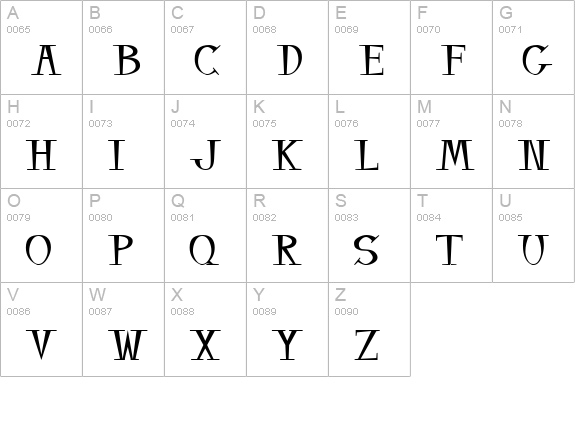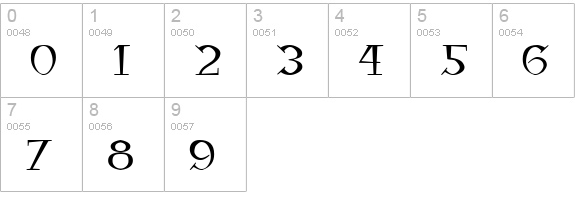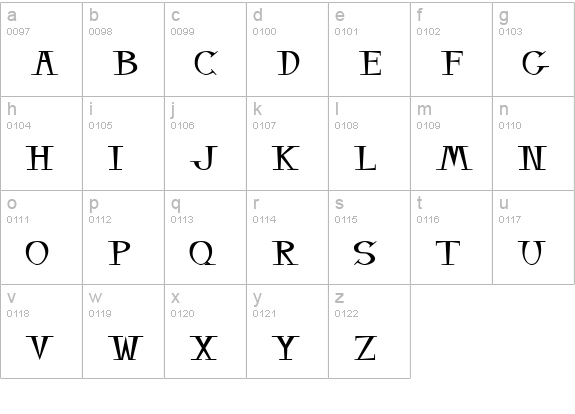
Balsamo font is a stunning display typeface that exudes elegance and sophistication. Its unique design, with intricate details and graceful curves, makes it perfect for adding a touch of luxury to any project. The flowing lines and stylish flourishes of Balsamo font create a sense of timeless beauty that is sure to captivate any audience. What makes Balsamo font even more appealing is that it is available for free download at FontsMarket.com. This means that you can easily access this exquisite typeface and use it in your designs without any cost. Whether you are working on a branding project, a wedding invitation, or any other creative endeavor, Balsamo font will elevate your work to new heights. Download Balsamo font today and experience the beauty and elegance it brings to your designs.